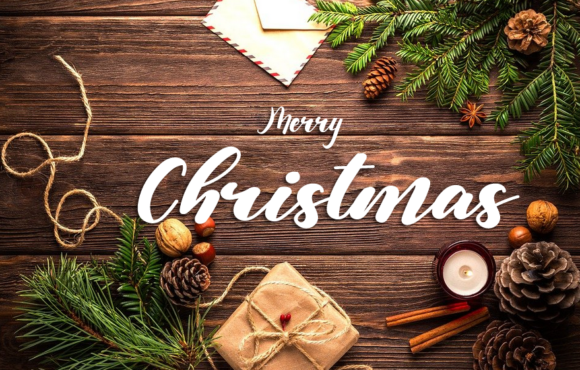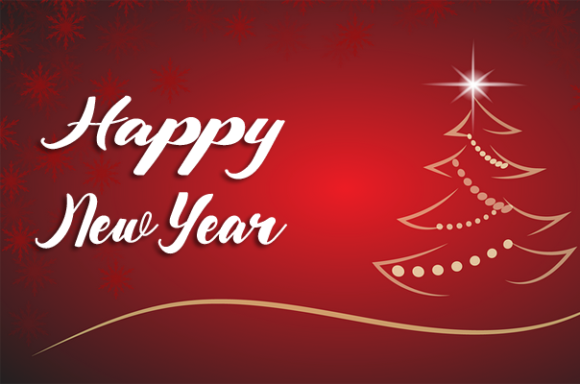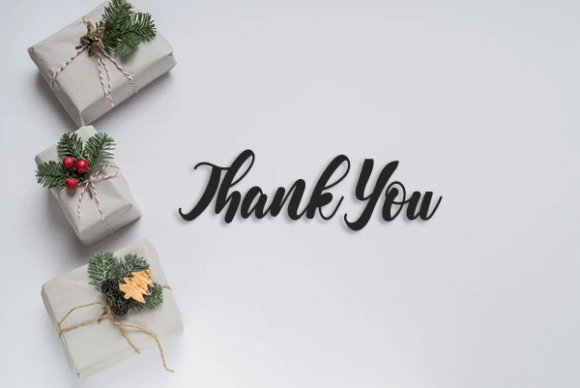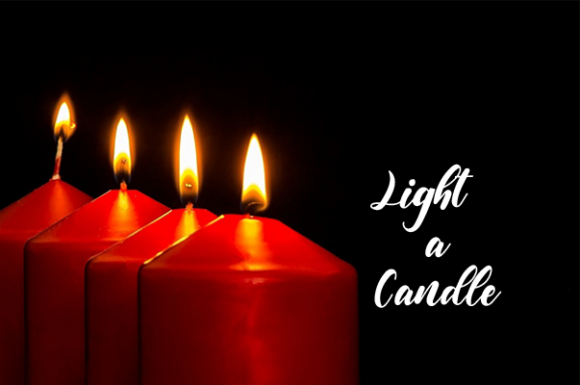
Christmas Font
Christmas is a beautiful and refined script font. It has a classy, elegant, and modern look that you can use for logos, branding, invitations, stationery, wedding designs, social media posts, and much more!